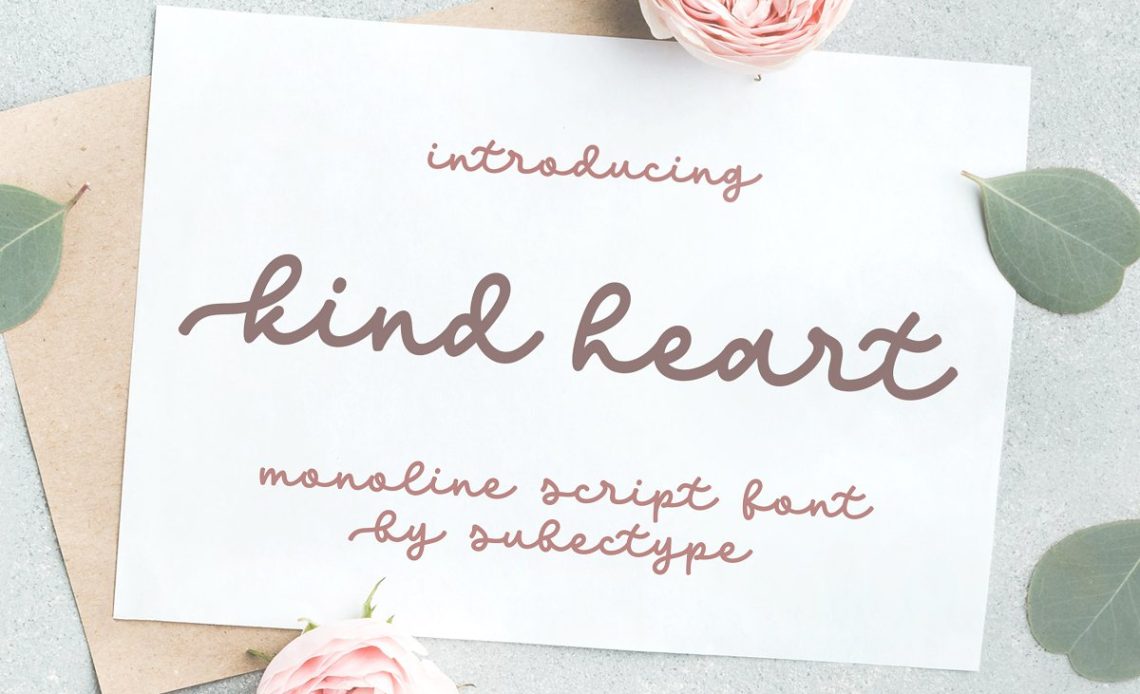
Welcome to the world of Kind Heart, the ultimate monoline script font that will captivate your heart! Created by the talented Muhammad Nur, this font is designed to bring a touch of cuteness and elegance to your projects. Whether you're working on logos, invitations, wedding materials, or simply want to add a personal touch to your designs, Kind Heart is the perfect choice.
With its charming and playful style, Kind Heart is guaranteed to make a lasting impression. Its impeccable readability ensures that your message will be delivered with clarity and flair. Say goodbye to dull and mundane fonts, and embrace the beauty of Kind Heart.
One of the standout features of Kind Heart is its alternates. These unique variations of each letter provide endless possibilities for customization. Let your creativity run wild as you experiment with different combinations and create designs that are truly one-of-a-kind.
Why settle for ordinary when you can have extraordinary? Kind Heart is the font that will elevate your designs and make them stand out from the crowd. Its captivating charm will mesmerize your audience and leave a lasting impression. Whether you're a professional designer or a DIY enthusiast, Kind Heart is the secret weapon that will take your projects to the next level.